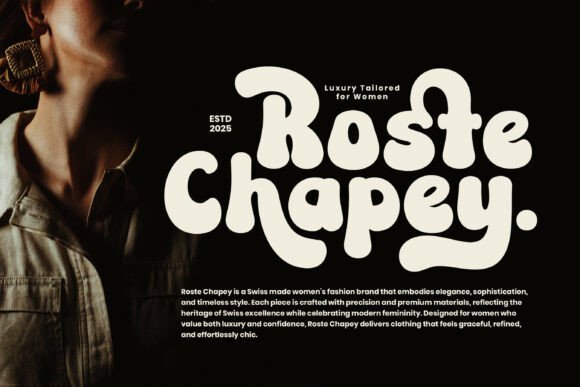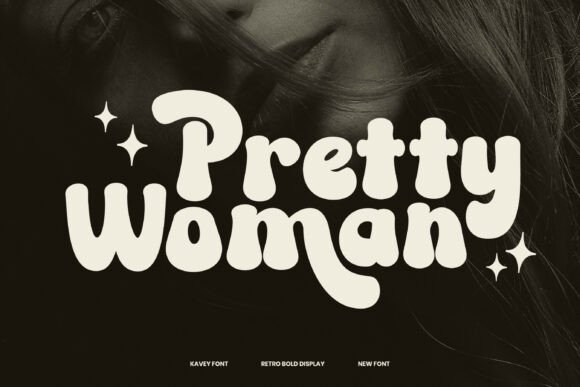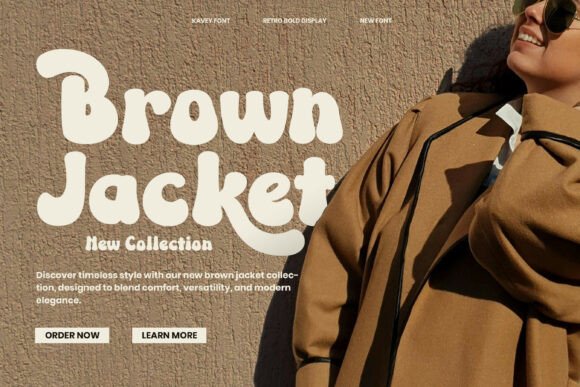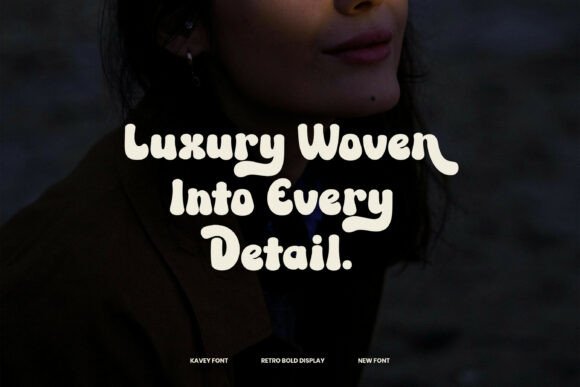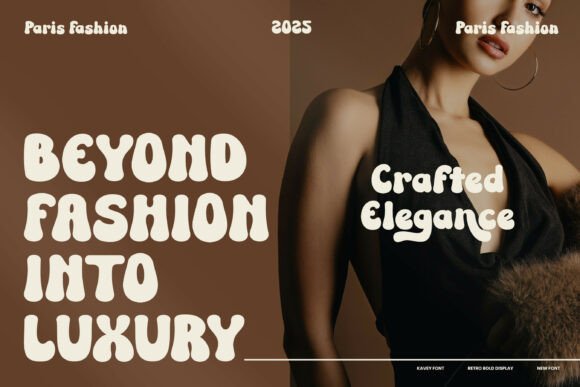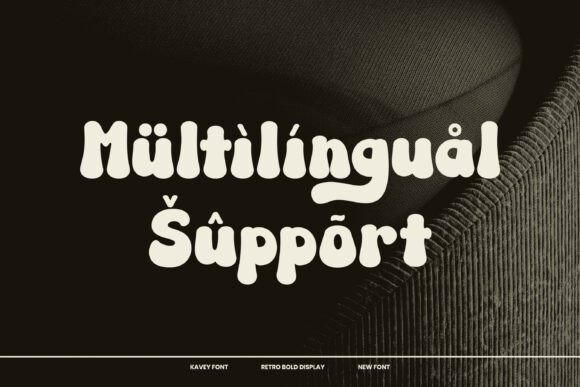
Introduction to Kavey Font
Remember that moment when you stumble upon a font that perfectly captures the essence of your creative vision? For designers, it’s a moment of pure joy. That’s exactly what happened when we discovered the Kavey Font – a bold and playful retro display font that brings a groovy and nostalgic vibe to your design projects.
With its chunky letterforms and smooth curves, Kavey Font captures the high-quality aesthetic of vintage designs while remaining fresh and modern for contemporary use. Whether you’re working on a creative project that requires a bold statement or a free download for your design resource library, Kavey Font is an excellent addition. Its transparent background and effortless access to all glyphs, swashes, and alternate characters make it a valuable asset for designers looking to add a sense of fun and personality to their work.
Key Features of Kavey Font
- High-quality design with a unique, creative touch, ideal for various projects.
- Transparent background, allowing for seamless integration with any design.
- Perfect for use in digital design, including logos, graphics, and UI elements.
- Supports a wide range of languages, making it a versatile design tool.
Honest Review: Kavey Font
As a designer, I’m always on the lookout for high-quality design resources to elevate my creative projects. Recently, I stumbled upon the Kavey Font, and I must say, it’s been a game-changer for my work.
Here are some things that work well with this font:
- ✨ High-quality design: The font is crisp, clean, and visually appealing, making it perfect for any creative project.
- ✨ Versatile: The font comes in various styles and weights, allowing me to experiment with different looks and feels for my projects.
- ✨ Transparent background: The font’s transparent background makes it easy to use in combination with other design elements, giving me more creative freedom.
- ⚠️ Limited customization options: While the font is versatile, I found that it can be a bit tricky to customize to my exact specifications.
Overall, I’m impressed with the Kavey Font and would highly recommend it to fellow designers. While it may have some limitations, its high-quality design and free download make it a valuable addition to any design resource library.
Tips for Getting the Most Out of Kavey Font
To get the most out of Kavey Font, experiment with different font sizes, colors, and combinations. This creative project design resource also offers a transparent background option, allowing for seamless integration with your design. Remember to save your design as a high-quality image to ensure the font looks its best.
Kavey Font is perfect for designing social media graphics, presentations, and brochures. Its unique style and high-quality design make it an excellent choice for any creative project. With a free download option available, you can start using Kavey Font today and elevate your design game.